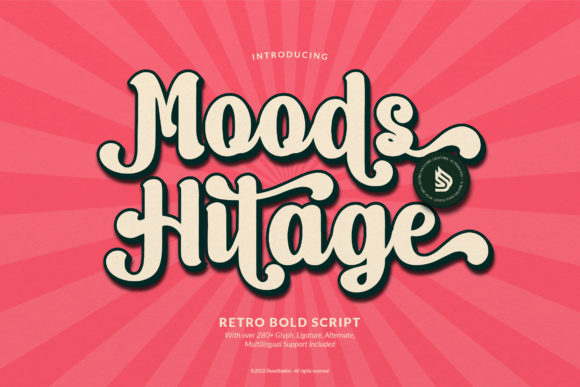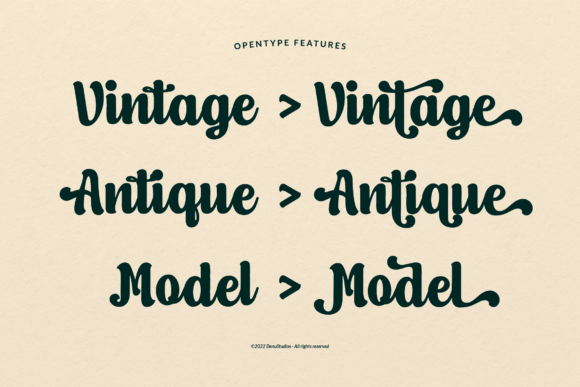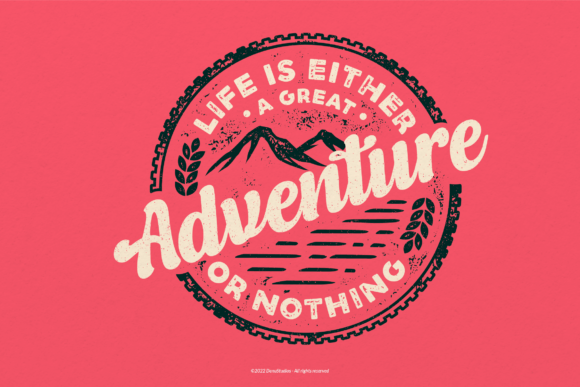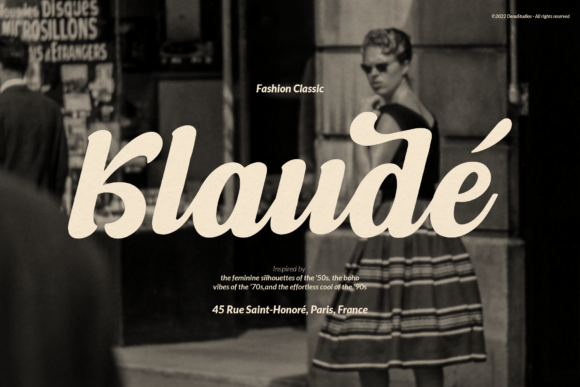
Moods Hitage Font
About the Moods Hitage Font
Let us introduce you to Moods Hitage Font, where timeless design meets modern craftsmanship. Moods Hitage is a bold and stylish retro script font with a vintage charm. Featuring smooth curves, playful swashes, and a nostalgic feel, this font is perfect for branding, posters, packaging, and social media designs. With over 280+ glyphs, ligatures, and alternates, it provides endless customization options.
Moods Hitage excels in headline treatments, short text blocks on posters, and packaging design where its vintage charm and swashes add visual flair. It’s less suitable for body text or UI elements due to its decorative nature; readability suffers over longer stretches.
Consider pairing it with a clean sans-serif like Montserrat for a modern contrast or a classic serif such as Garamond for a more traditional feel. For a bolder statement, a geometric sans-serif like Futura would complement its retro boldness.
The font’s overall personality is playful yet sophisticated, lending itself well to brands aiming for a vintage-inspired aesthetic with a touch of modern energy. Think handcrafted goods, boutique businesses, or events with a retro theme.
Moods Hitage Font Usage Examples
Moods Hitage Font Example